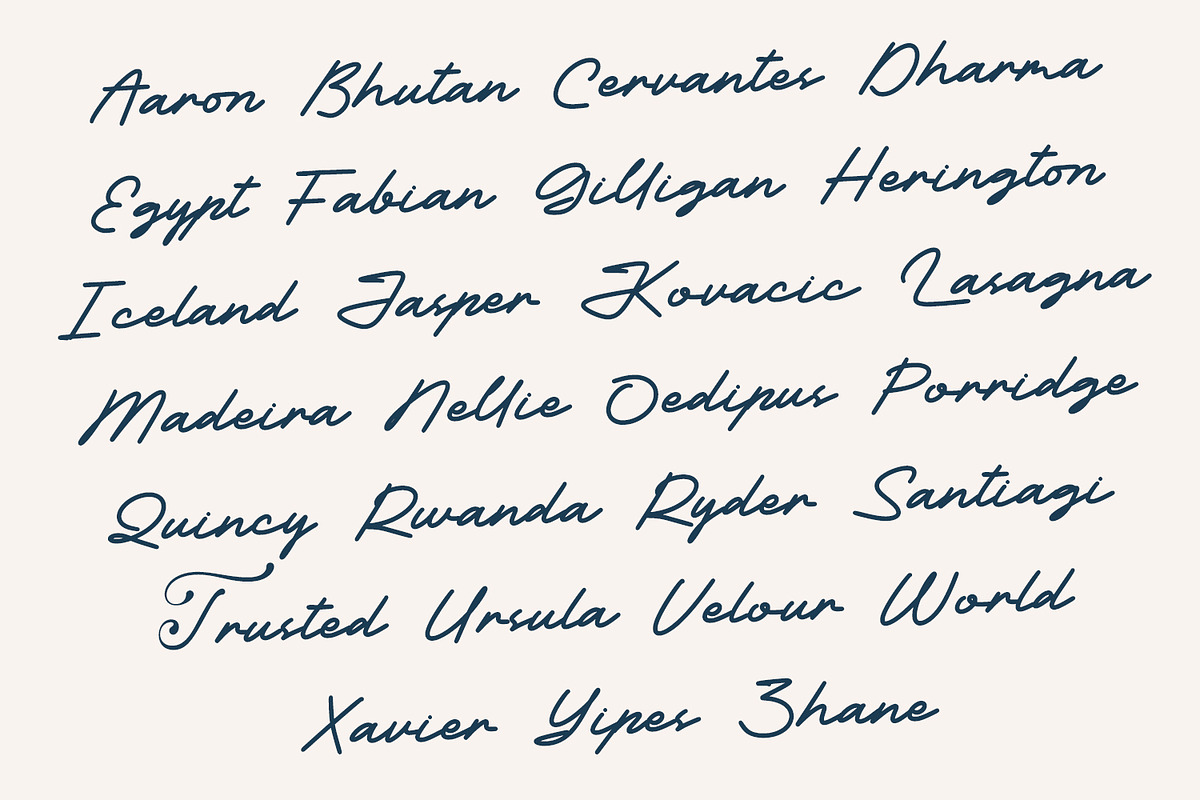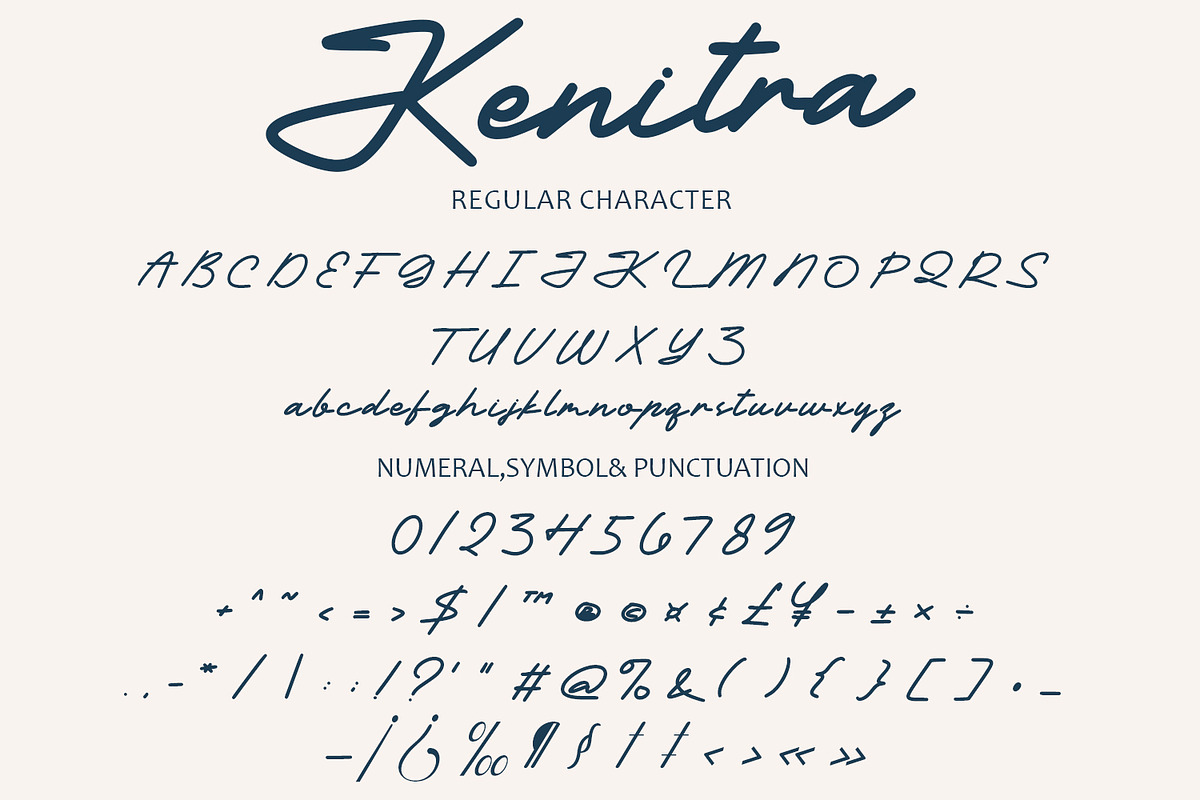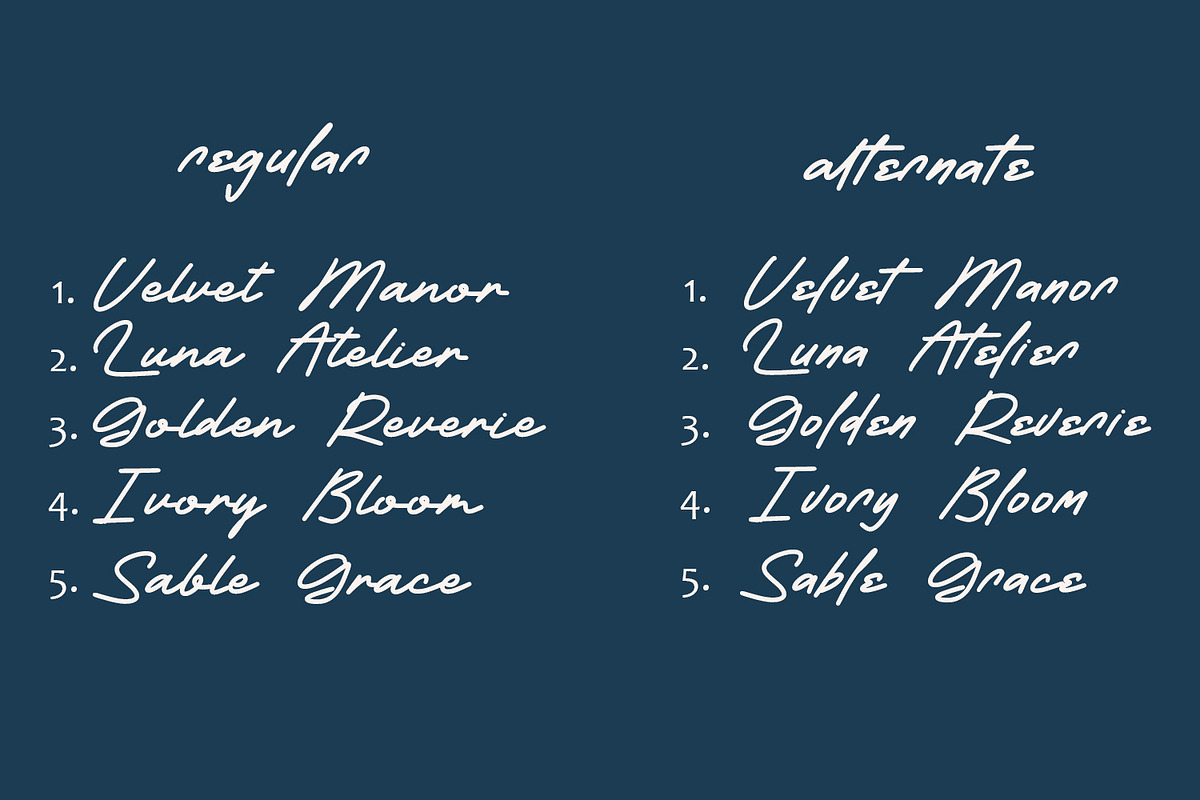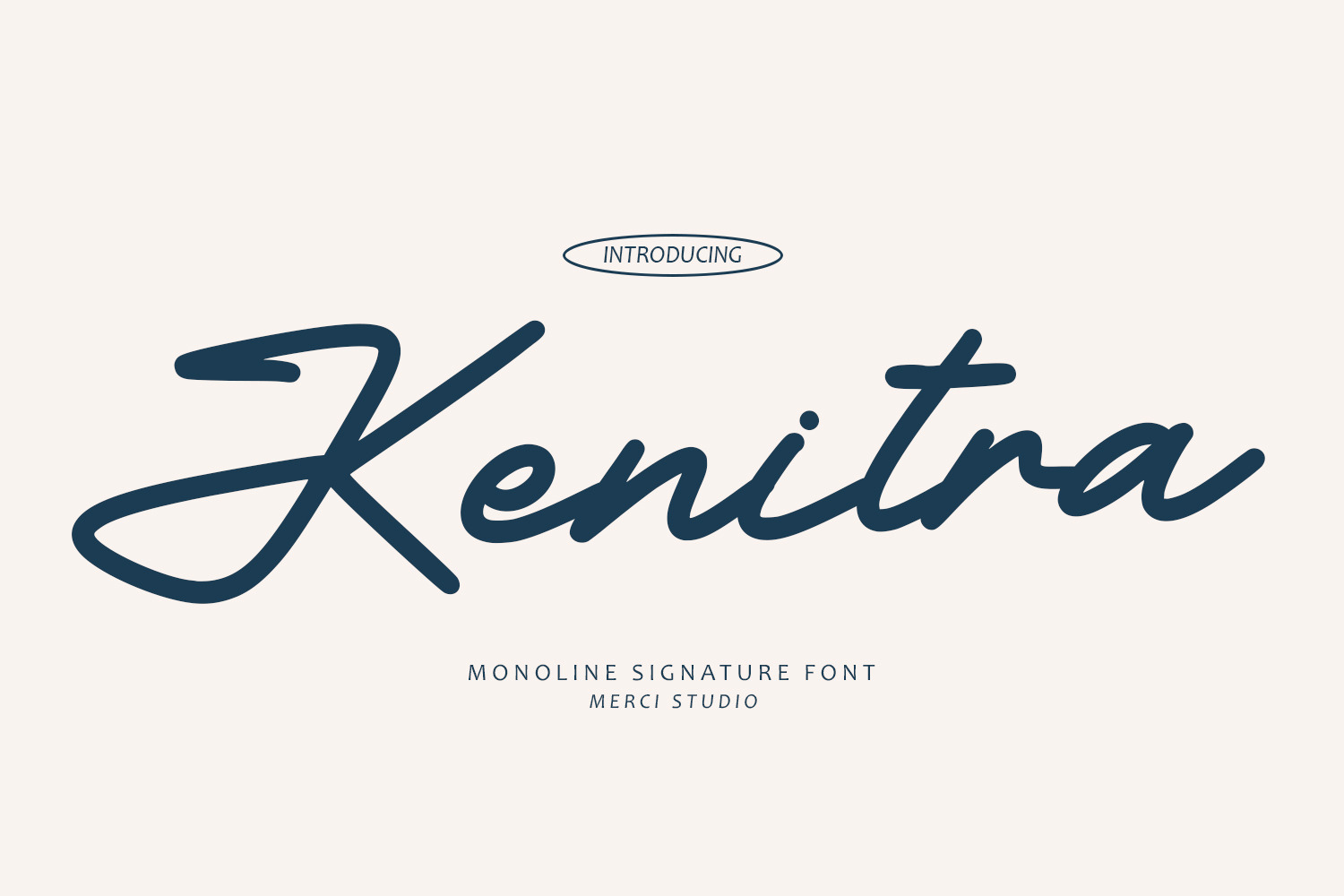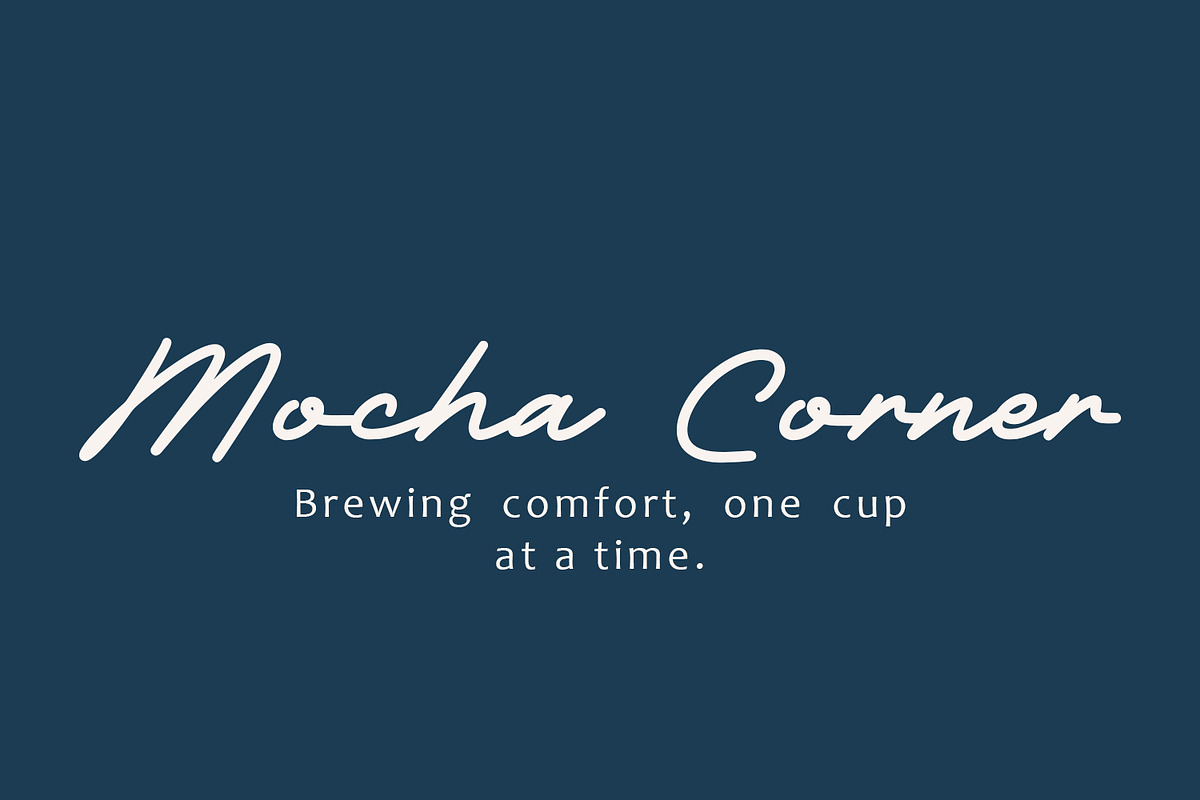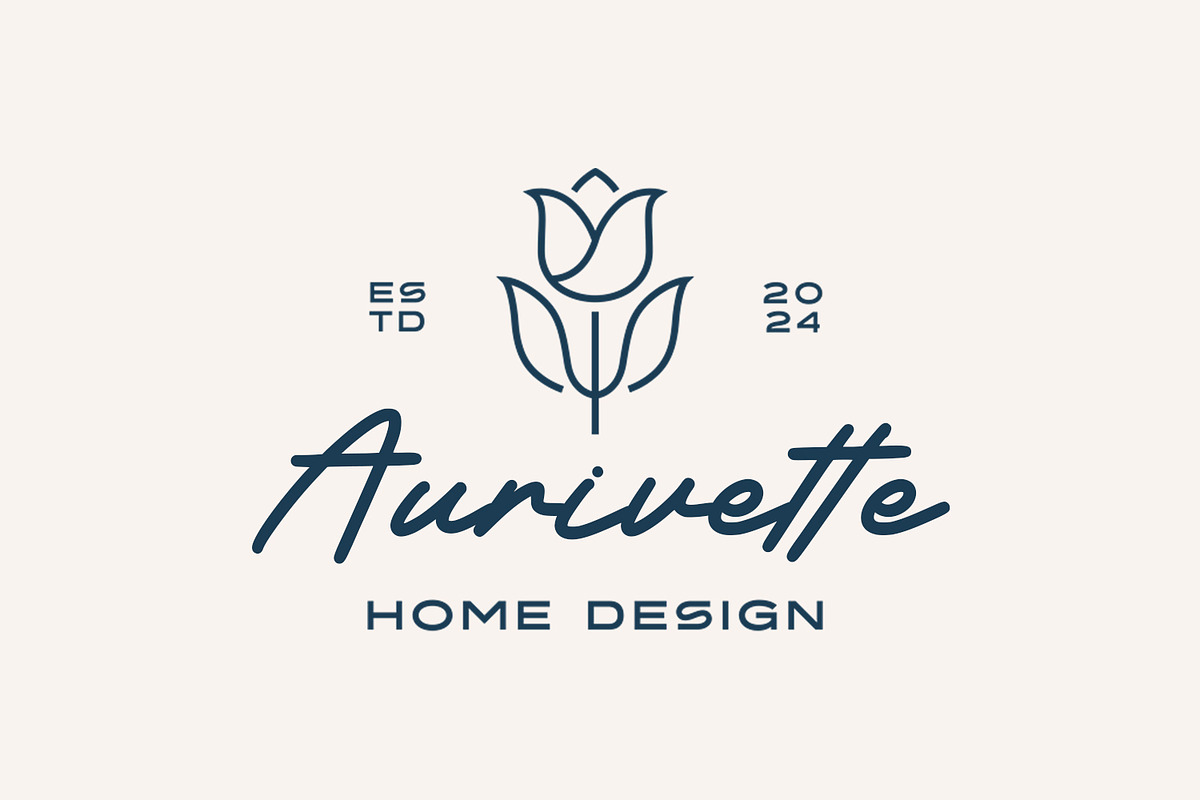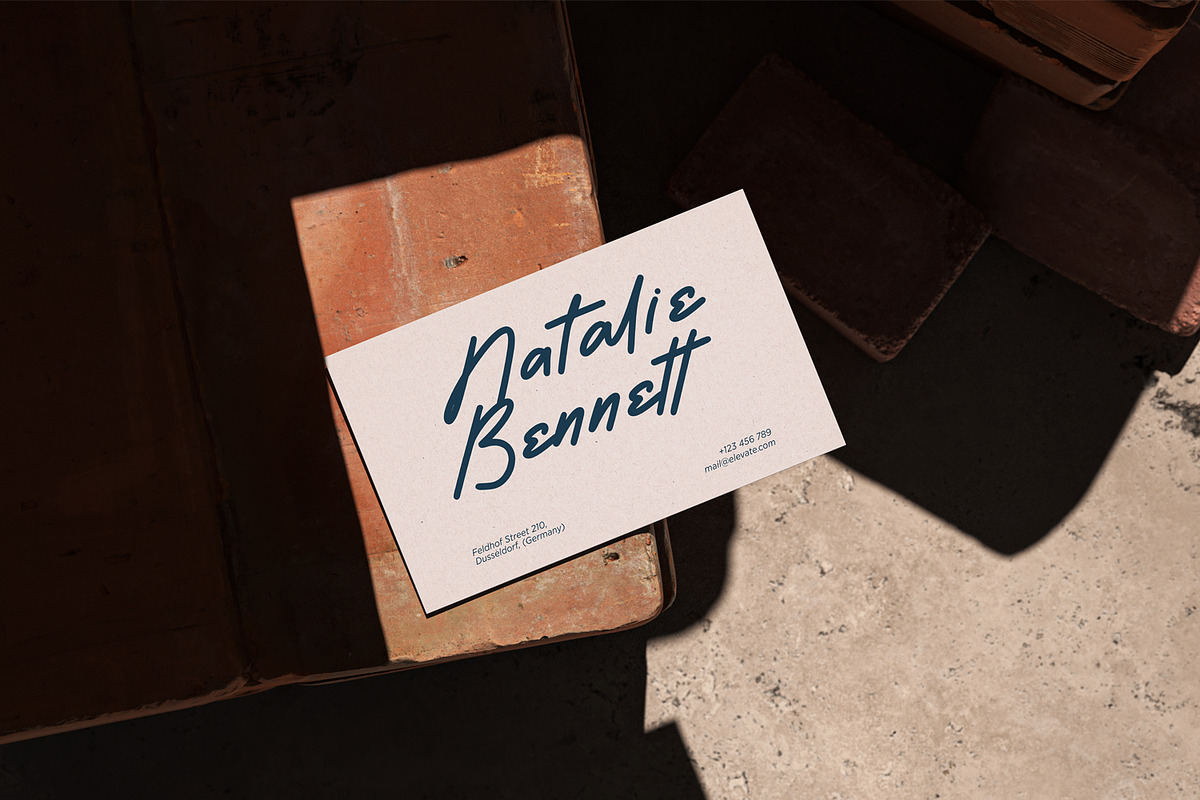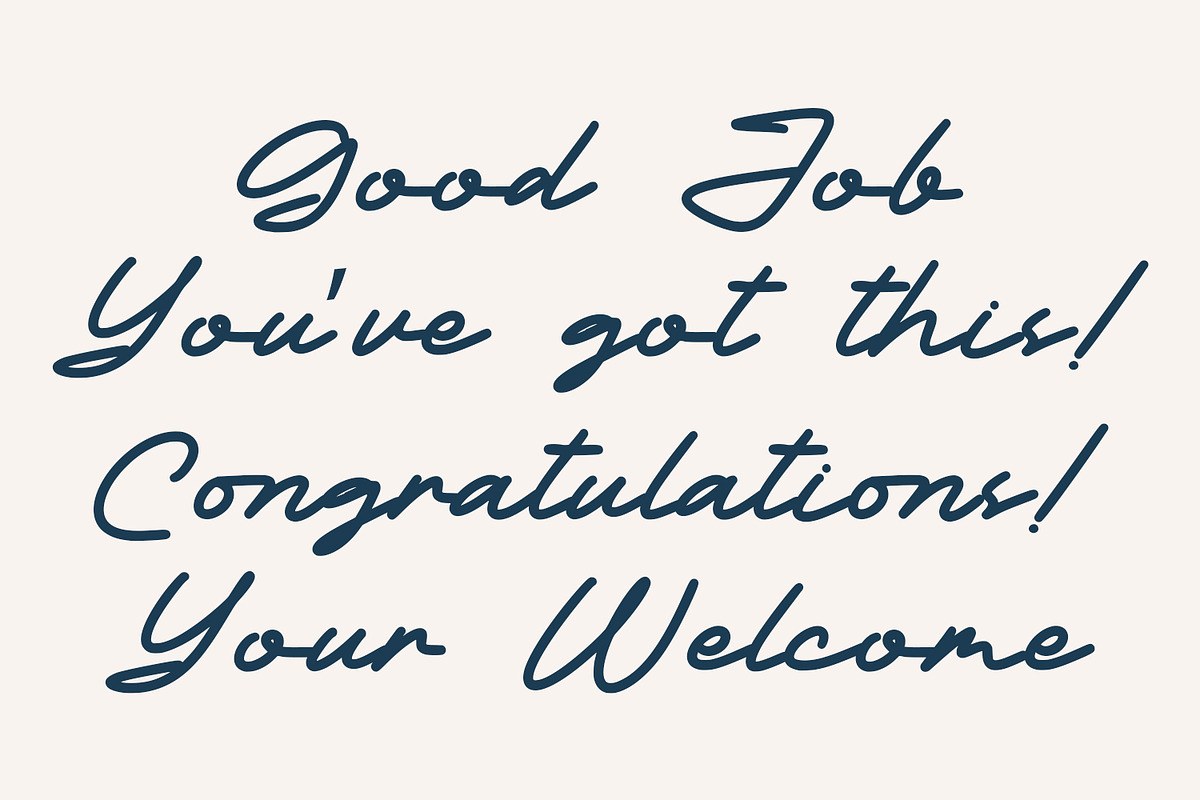
Kenitra – Monoline Signature Font
Kenitra is a stylish monoline signature font that brings a touch of elegance and sophistication to any design. With its fluid strokes and clean lines, Kenitra is perfect for branding, packaging, logos, social media graphics, and personal signatures. Crafted by Merci Studio, this font combines a modern aesthetic with the timeless charm of handwritten script, making it an ideal choice for both professional and creative projects. Let Kenitra add a graceful, personal touch to your next design.
* Uppercase Letters
* Numbers & Punctuation
* Ligature & Alternate Character
* Unique Hand-Drawn Style